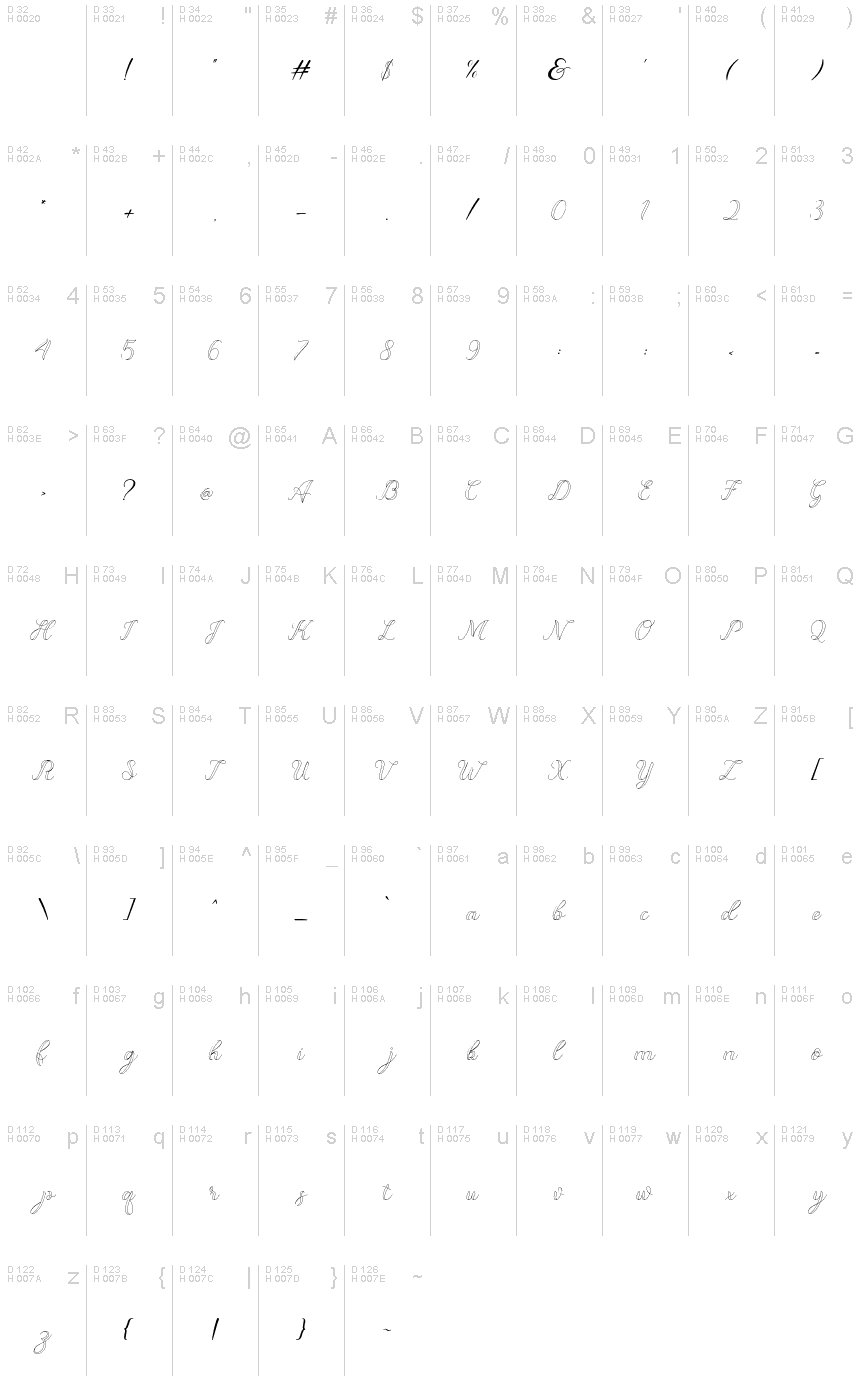
Dominica Calligraphy Outline
Dominica Calligraphy Outline, designed by Ride Studio in 2021, is a semi-light outlined calligraphy font that exudes elegance and sophistication. This stunning typeface is perfect for any project that requires a touch of refinement - from wedding invitations to branding materials. Its intricate detailing and delicate strokes make it ideal for use as a display font or in headlines. Whether you're designing a logo, creating social media graphics, or crafting a digital poster, Dominica Calligraphy Outline will add an air of luxury to your work. Don't settle for ordinary - elevate your designs with this exquisite font!